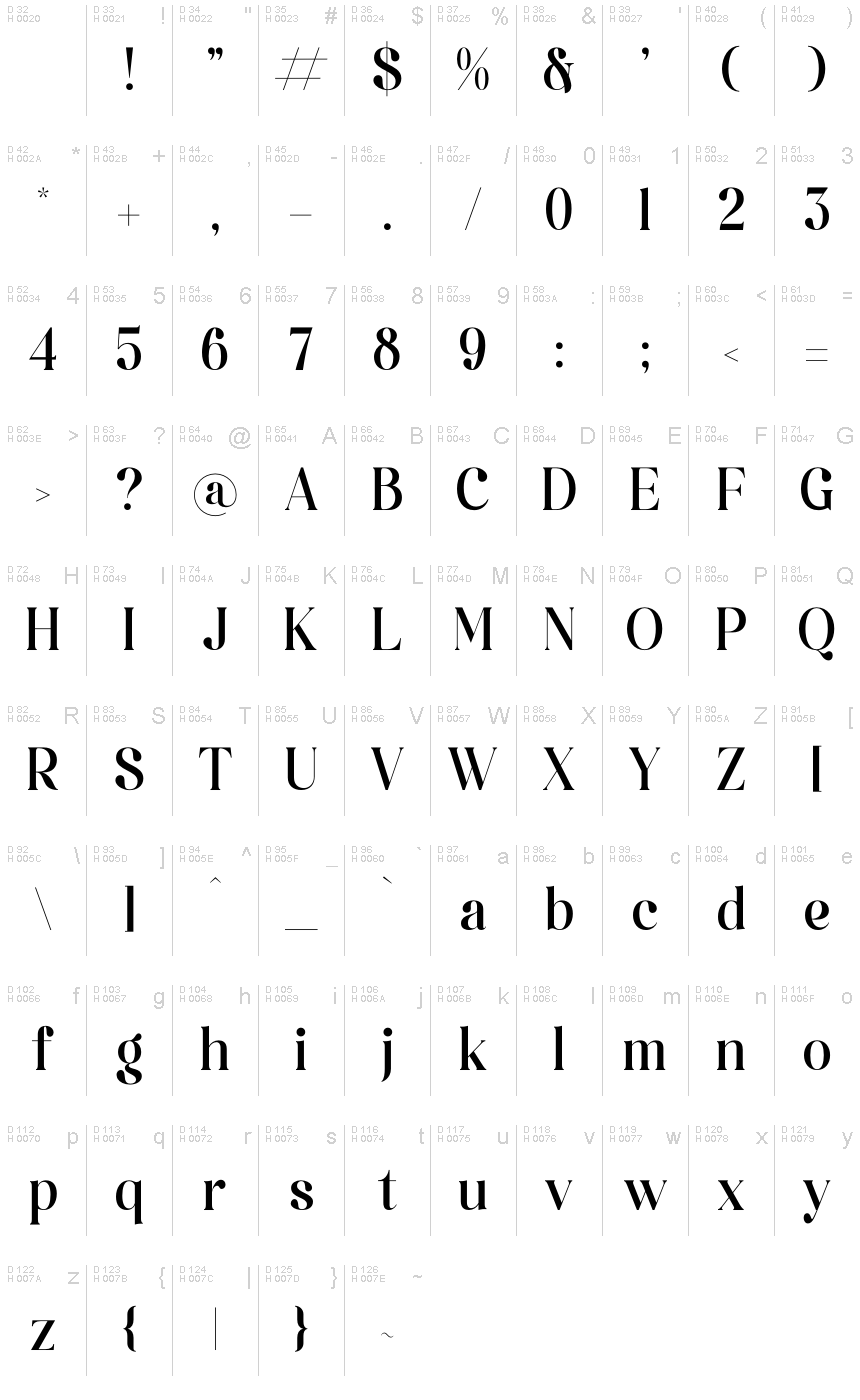
Regikan
Regikan, a captivating serif font designed by Storytype Studio, exudes a timeless elegance with its refined, balanced strokes and subtle flourishes. This typeface effortlessly blends traditional sensibilities with a modern, refined aesthetic, creating a harmonious visual experience. The delicate ligatures and carefully crafted letterforms give Regikan a distinctive personality, evoking a sense of sophistication and refinement.
The versatility of Regikan allows it to seamlessly integrate into a variety of design contexts, from editorial layouts and luxury branding to high-end product packaging and sophisticated web interfaces. Its versatility and adaptability make Regikan an invaluable asset for designers seeking to elevate their projects with a touch of timeless sophistication.